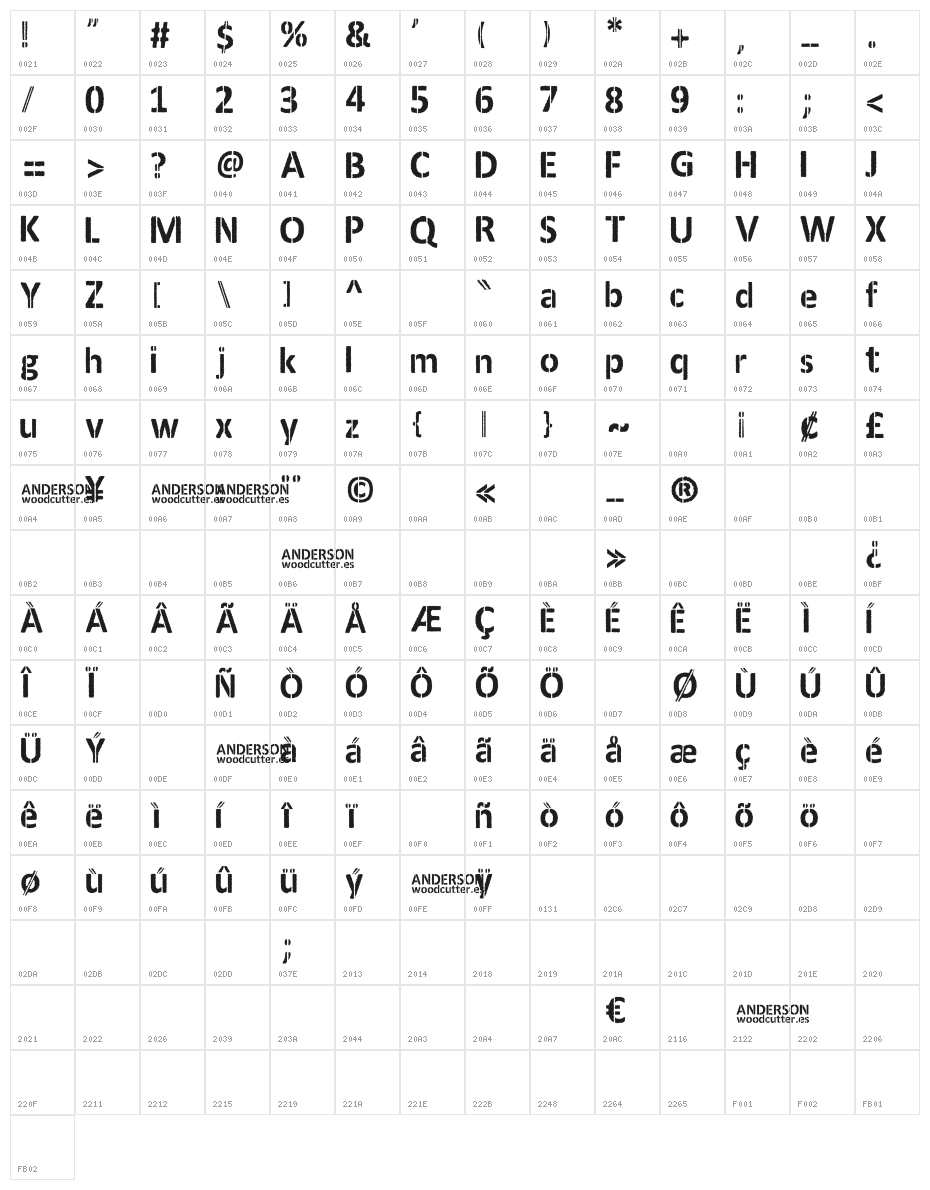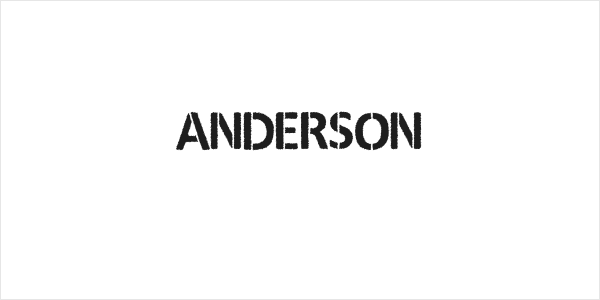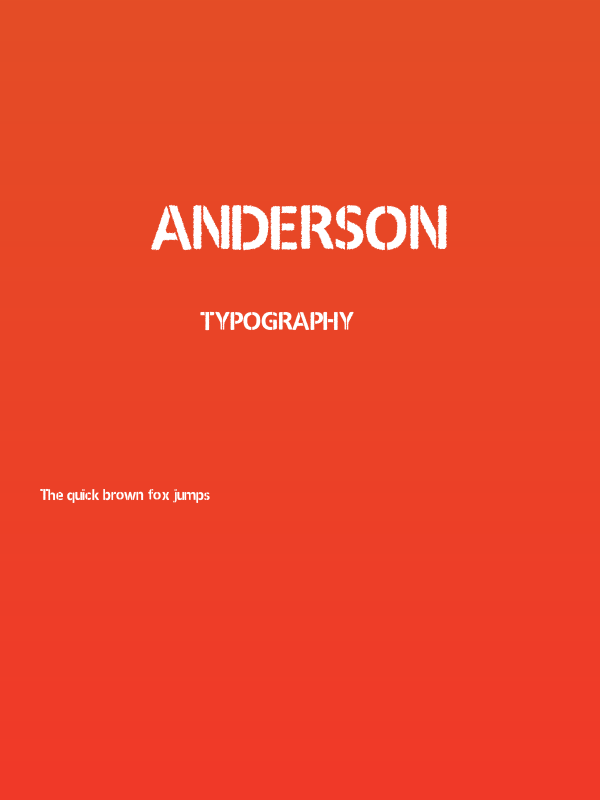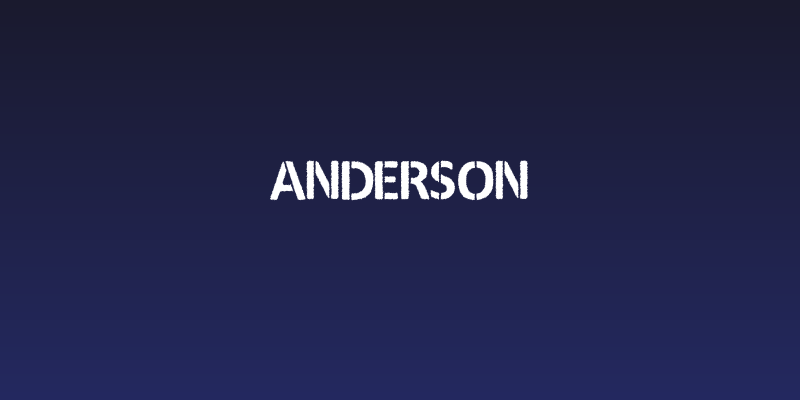
ANDERSON Font
ANDERSON Description
This font features a bold, textured appearance with a distressed, stencil-like quality. The characters are robust and impactful, making them stand out with a unique, rugged charm. The uppercase and lowercase letters maintain a consistent style, with rounded edges and a slightly condensed form. The numbers and special characters follow the same design ethos, ensuring uniformity across all glyphs. This font's distinctive look is reminiscent of industrial or military themes, with a modern twist that adds to its versatility.
| Overall Style | Modern, Industrial |
| Proposed Projects | Ideal for branding projects, posters, and packaging designs that require a bold, industrial aesthetic. |